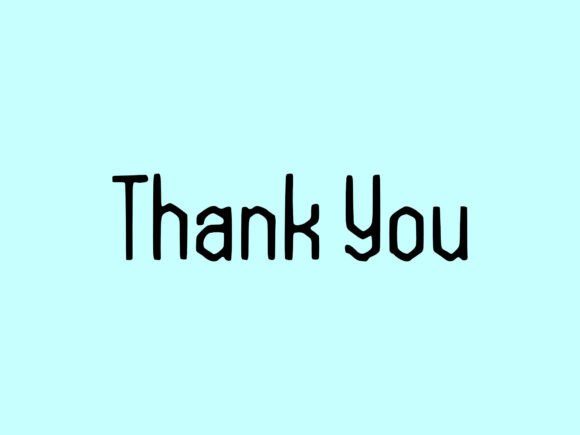
Retro Grid Font: A Vintage yet Futuristic Typeface for Modern Designs
In the realm of typography, few fonts manage to capture the essence of both nostalgia and modernity as effectively as the Retro Grid Font. This unique typeface has gained popularity among designers and artists for its bold, geometric style that pays homage to the retro aesthetic of 80s gaming and neon grids, while also boasting a futuristic appeal. Whether you’re working on posters, logos, branding projects, album covers, or digital content, Retro Grid Font is an excellent choice for adding a touch of vintage flair with a contemporary twist.
Key Features of Retro Grid Font
- Vintage yet Futuristic Aesthetic: Inspired by the iconic visual elements of 80s retro gaming and neon grids, this font brings a distinctive look that is both nostalgic and forward-thinking.
- Bold and Geometric Style: The font’s bold, geometric design makes it stand out, adding a dynamic and eye-catching element to any project.
- Perfect for Various Projects: From posters and logos to branding, album covers, and digital projects, this font’s adaptability makes it a valuable asset for designers.
The Inspiration Behind Retro Grid Font
The Retro Grid Font draws its inspiration from the vibrant and pixelated world of 80s retro gaming. During this era, video games and their graphical user interfaces were characterized by limited color palettes, blocky graphics, and neon lights. These elements, combined with the grid-based layouts often used in digital interfaces, have been skillfully translated into a typographic form that is both a tribute to the past and a bridge to the future.
The design of Retro Grid Font captures the spirit of this retro-futuristic aesthetic by incorporating bold lines, geometric shapes, and a striking color scheme reminiscent of neon lights. The result is a font that not only stands out in digital and print media but also evokes a sense of nostalgia in those who grew up during the 80s, while offering a fresh and modern look that appeals to contemporary design sensibilities.
Exploring the Uses of Retro Grid Font
The versatility of Retro Grid Font makes it suitable for a wide range of design projects. Here are some of the key areas where this font truly shines:
- Posters and Flyers: Add a bold and eye-catching title to your posters and flyers with Retro Grid Font, making them instantly noticeable.
- Logos and Branding: Create a memorable brand identity with a logo that utilizes the unique aesthetic of Retro Grid Font, perfect for businesses aiming to stand out with a retro-modern vibe.
- Album Covers: Give your music project a distinctive look with an album cover that features Retro Grid Font, ideal for artists looking to evoke a sense of nostalgia or futuristic appeal.
- Digital Projects: Enhance your digital content, such as website headers, social media graphics, and video overlays, with the futuristic yet nostalgic charm of Retro Grid Font.
Tips for Using Retro Grid Font Effectively
To maximize the impact of Retro Grid Font in your designs, consider the following tips:
- Pair with Complementary Fonts: For optimal results, pair Retro Grid Font with simpler fonts to maintain visual balance and ensure readability.
- Experiment with Colors: Take advantage of the font’s compatibility with various colors, especially neon and pastel shades, to enhance its retro appeal.
- Consider Context: Tailor your use of Retro Grid Font to the specific context of your project, adjusting the size and style as needed to achieve the desired effect.
Retro Grid Font is a unique and versatile typeface that brings a distinctive blend of vintage and futuristic elements to any design project. Its bold, geometric style, inspired by the neon grids and pixel art of 80s retro gaming, offers a fresh yet nostalgic aesthetic that is sure to captivate audiences. With its wide compatibility and ease of use, Retro Grid Font is an excellent addition to the toolkit of designers looking to add a touch of retro flair with a modern twist to their work.